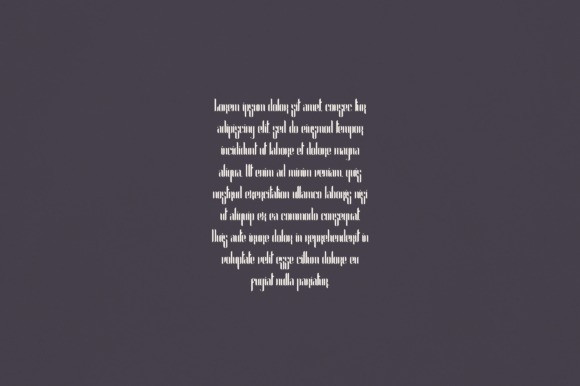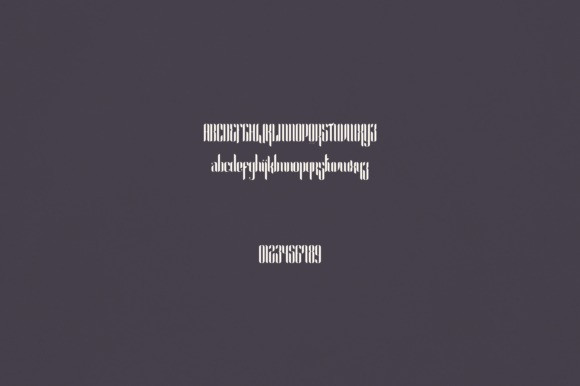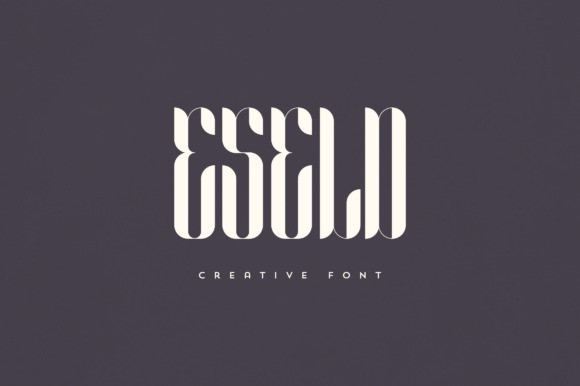
Eseld Display Font
Eseld Display Font is an elegant and versatile display font that will make your typography truly unique! It will enchant every logo, branding, headline, or plain text!